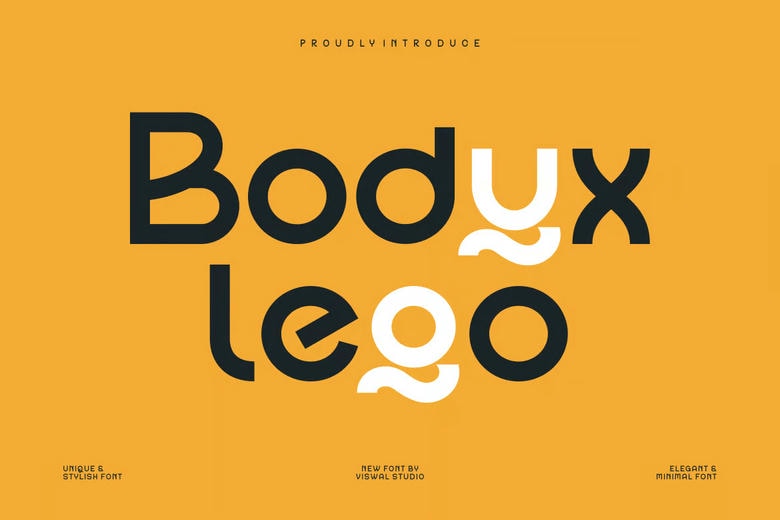
Bodyx Lego Font
Bodyx Lego is a Sans Serif Font. It is suitable for badges, labels, logos, brands, magazines, posters, etc. Our fonts feature upper and lower case, numbers and punctuation, multilingual support and OpenType features. For amazing designs, you can mix them with other fonts as a complement.
Bodyx Lego Sans Serif Font